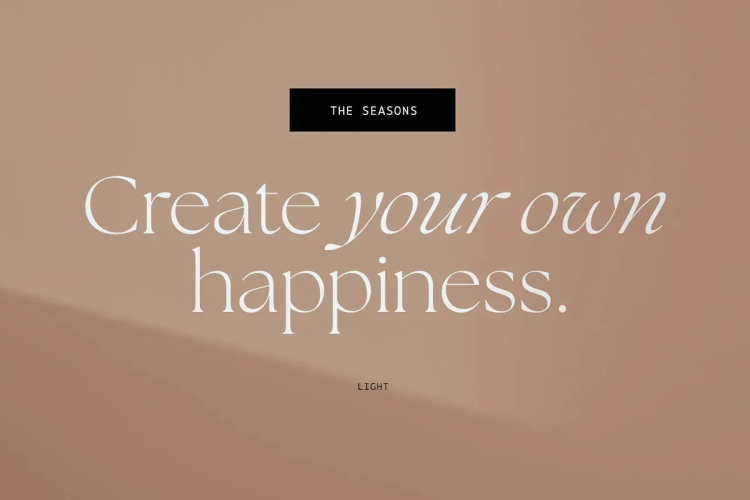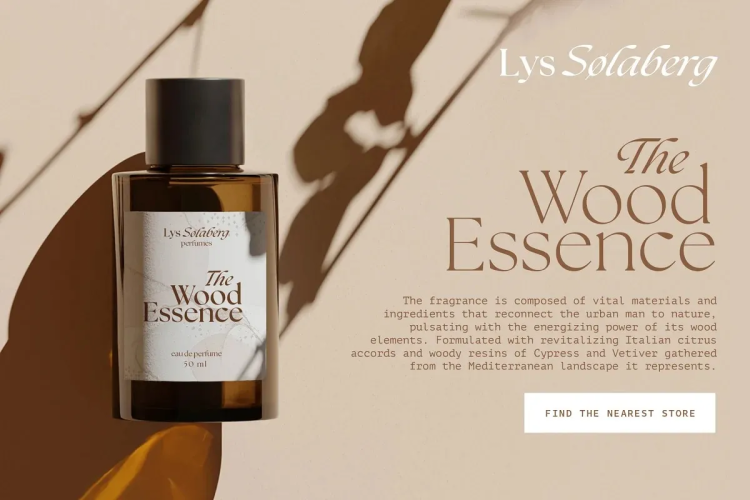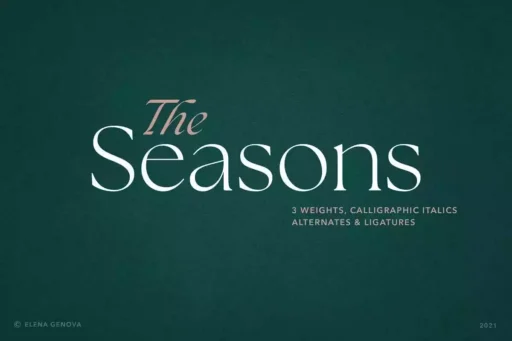
The Seasons Font
Seasons font family radiates everlasting charm and class, making it suitable for many designs. Using high-contrast serif fonts and a vintage chic style, The Seasons blends classic charm and contemporary flexibility. The corresponding calligraphic cursive italics, influenced by humanist italic scripts written with a Pilot Parallel Pen, create elegance and grace for any typographic designer.
The Seasons comes with six fonts in both regular and italic styles that allow designers to use their creativity. All fonts have soft terminals with a toothy cut, providing an exciting contrast between elegance and accuracy. Moreover, OpenType features like ligatures and stylistic alternates help make the font more flexible, thus enabling the designers to modify their designs easily.
The Seasons will take your projects to another level of sophistication, whether you are working on high-end branding, logo designs, magazines, product packaging, or invitations. Its timeless but modern look brings a little bit of luxury and class to every design, making it the ideal choice for projects seeking grace and style.
In addition, The Seasons font family is a perfect pick for event invitations, giving a sense of sophistication and class to wedding invitations, gala announcements, and other formal events. Its capacity to inspire feelings and make an event even more special makes it the perfect partner for special occasions.
To summarize, The Seasons font family is much more than a set of fonts. It’s a versatile kit for designers who want to add a touch of grace and elegance to their projects. The Seasons font family leaves the creative with no end of possibilities, from high-end branding to editorial design, product packaging, and event invitations.
The Seasons Font is a Serif Fonts font that brings a professional and versatile look to your projects. Seasons font family radiates everlasting charm and class, making it suitable for many designs.